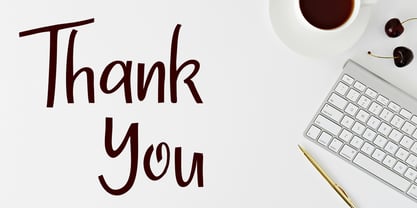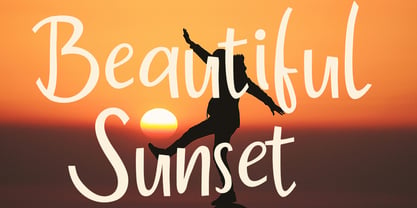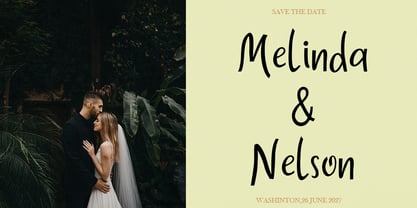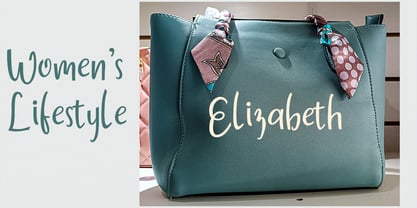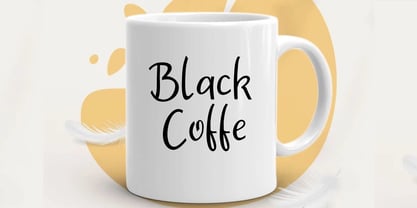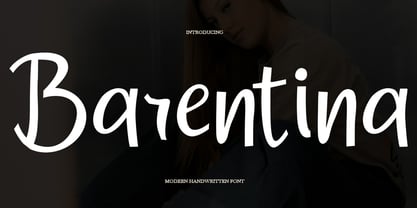
Barentina
Die Schriftfamilie Barentina wurde von Teuku Saifullah entworfen und von Shape Studio veröffentlicht. Barentina enthält 1 Stile. Mehr über diese Familie
Barentina is an elegant font that combines the beauty of classic decorative copperplate with a modern touch. Designed with great attention to detail, it offers a refined and stylish look that enhances any creative project.
The font’s smooth, clean, and graceful letterforms create a feminine and glamorous feel, while remaining highly legible. Luxurious letter connections and flowing curves make it perfect for designs that need sophistication and charm. Barentina also comes with alternative styles and stylistic variations, giving you the flexibility to craft unique and personalized typography.
Its timeless appeal makes it ideal for a wide range of applications, including invitations, labels, restaurant menus, logos, fashion and beauty branding, stationery, magazines, books, greeting or wedding cards, packaging, and promotional materials.
Barentina supports multiple languages and includes advanced OpenType features such as elegant stylistic alternates and ligatures. These features can be accessed automatically or manually, allowing you to explore endless creative combinations and achieve stunning, customized results.